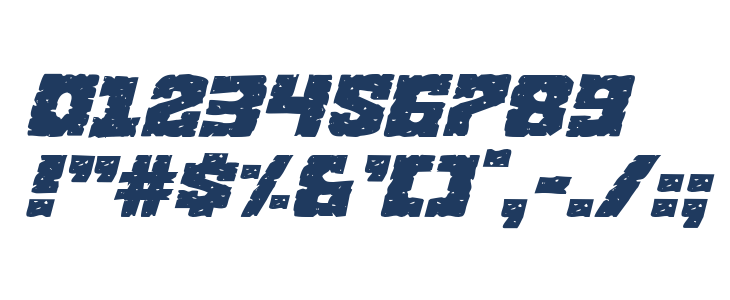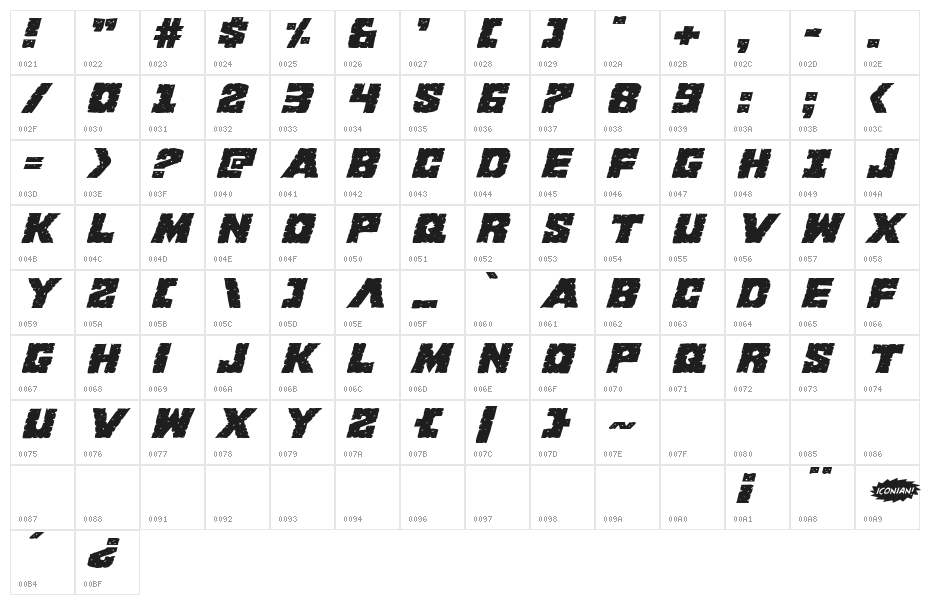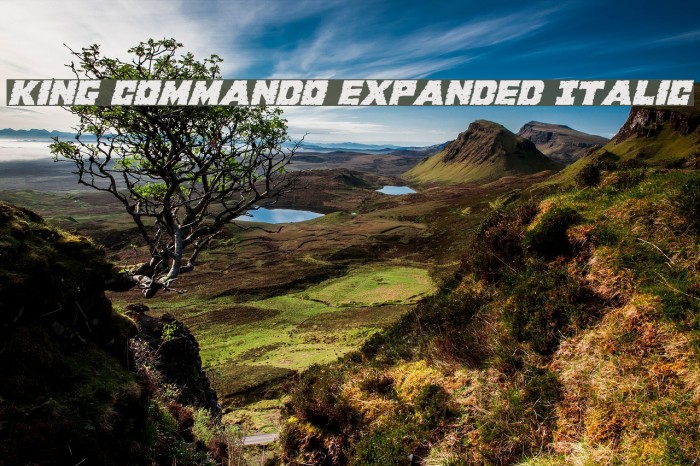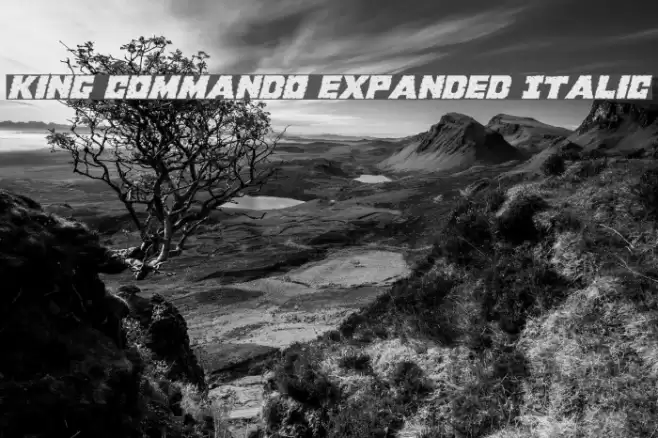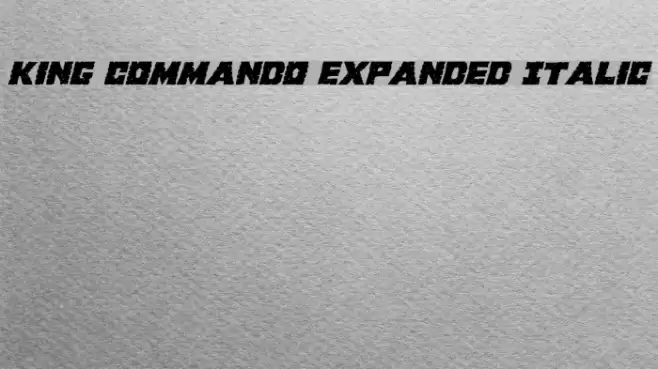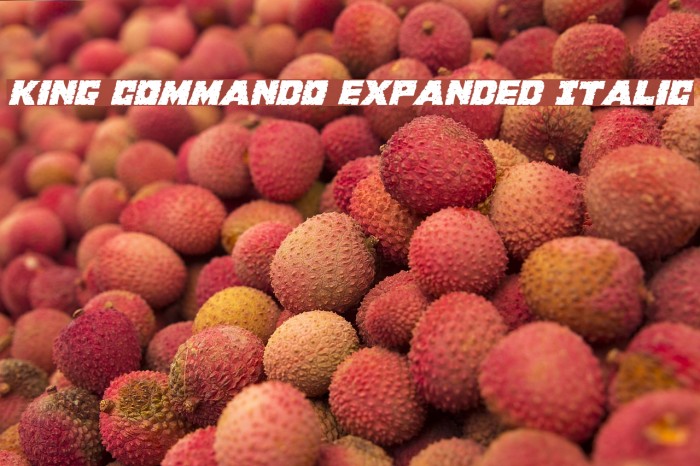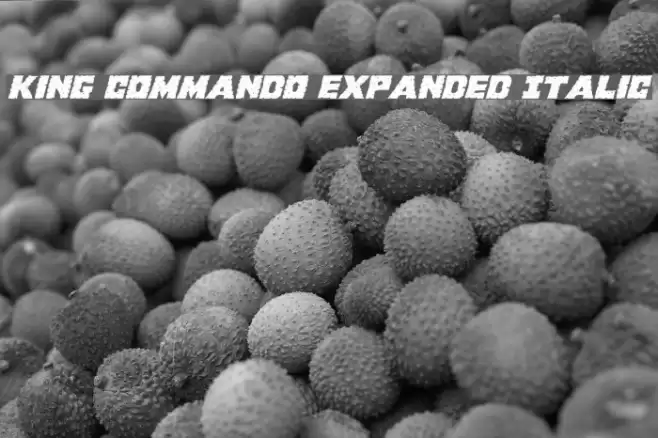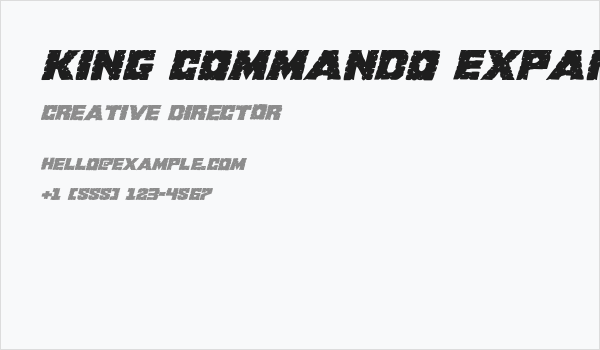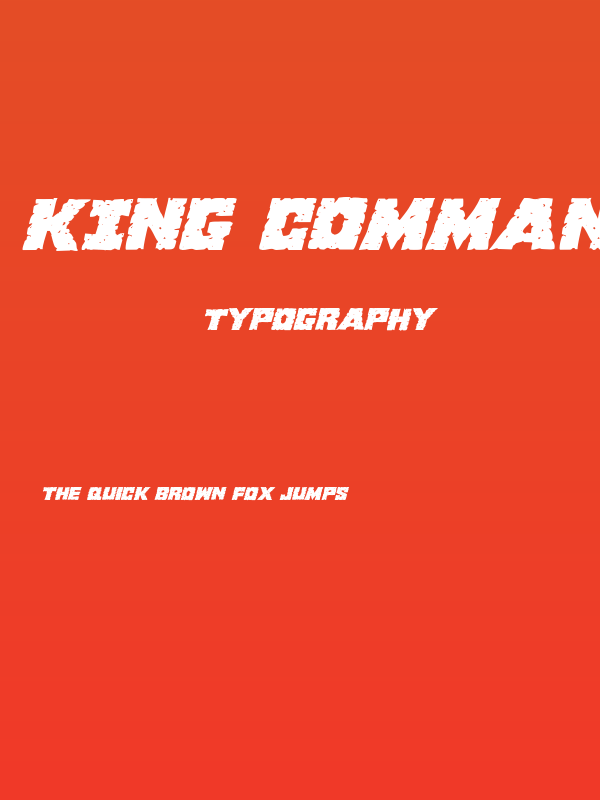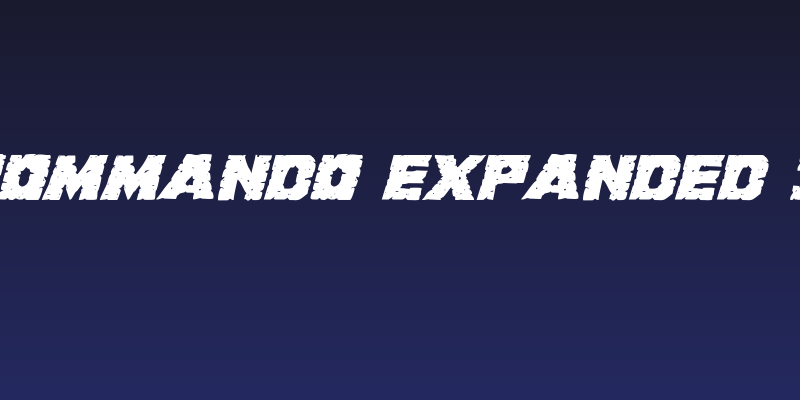
King Commando Expanded Italic Font
King Commando Expanded Italic Description
This font features a bold and rugged design with a distressed texture, giving it a gritty and dynamic appearance. The characters are expanded and italicized, adding a sense of movement and urgency. The uppercase and lowercase letters maintain a consistent style, with sharp angles and a blocky structure. The numbers and special characters follow the same aesthetic, ensuring uniformity across all glyphs. This font is ideal for projects that require a strong, impactful presence, such as military-themed designs or action-oriented graphics.
| Proposed Projects | Ideal for military-themed designs, action movie posters, video game titles, and bold branding projects. |